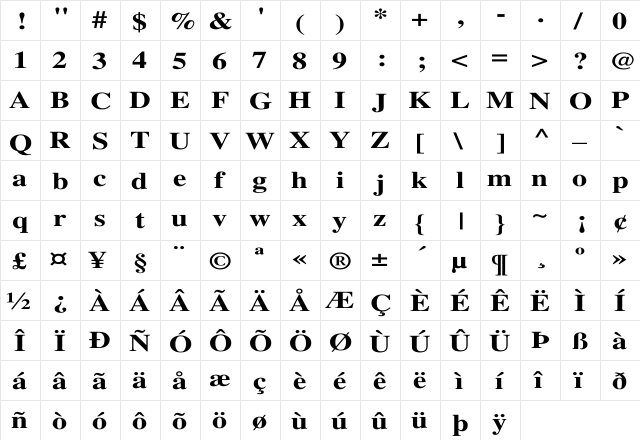
Times-Bold Wd Regular
Design Context for Times-Bold Wd Typeface
Times-Bold Wd is a composed and adaptable typeface that performs quietly and consistently across a wide range of design contexts. Its bold stroke weight gives it real presence on the page.
Pro Tip: Use Times-Bold Wd in both headline and body roles to test its range before committing to a single application.